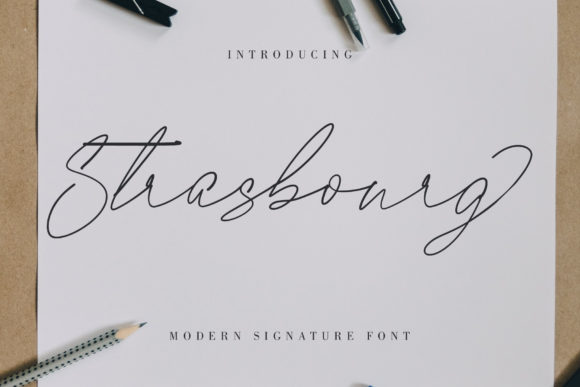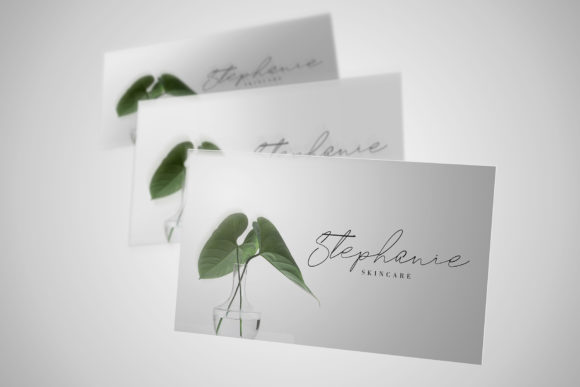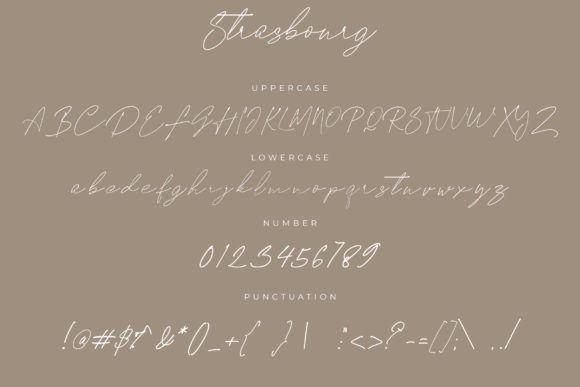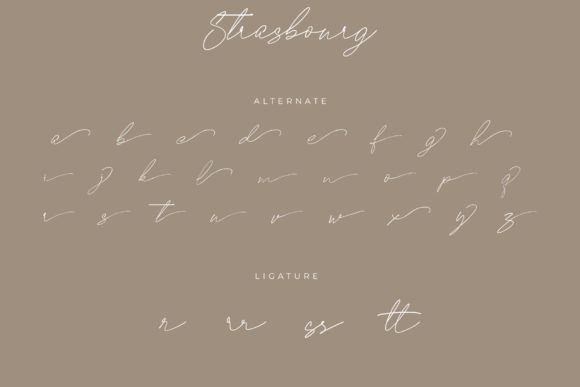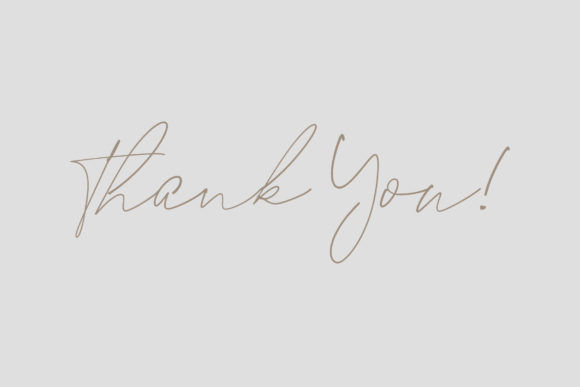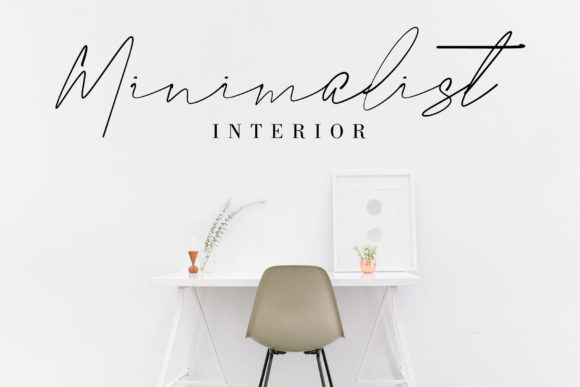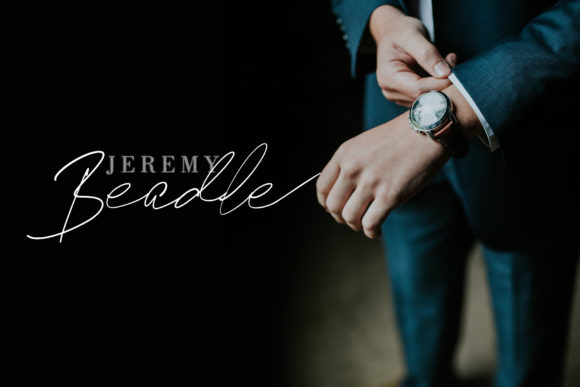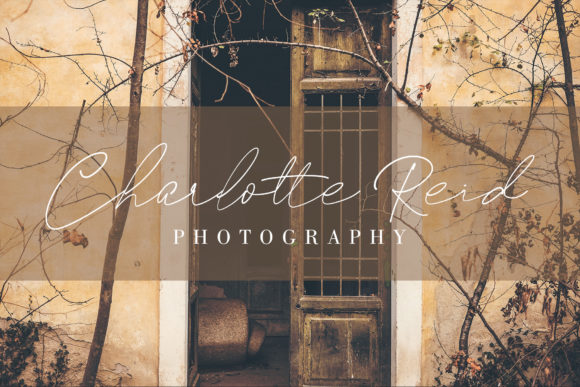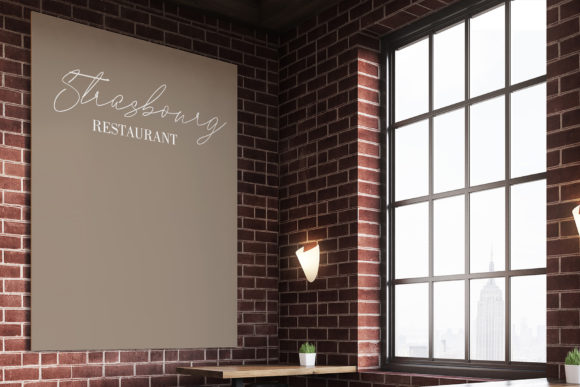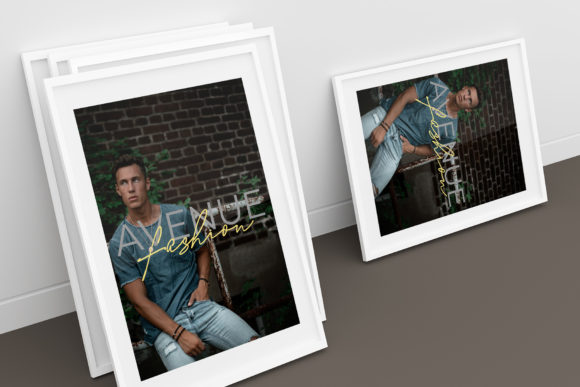
Strasbourg Font
About Strasbourg Font
Strasbourg is a magical handwritten font carefully created with a touch of elegance. This is a beautiful combination of timeless elegance and authentic calligraphy. It features an incredibly classic style, while still keeping a friendly feel. This font is the perfect font for making original and outstanding designs.